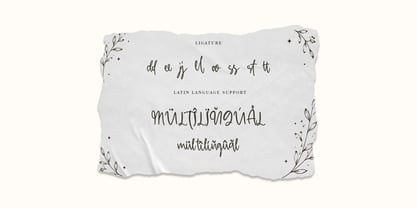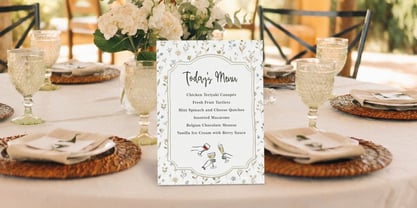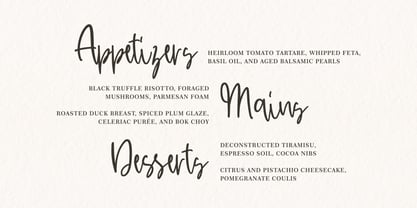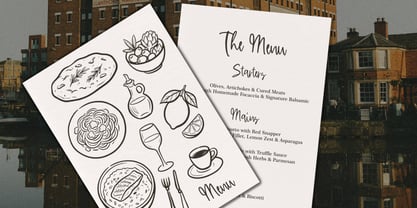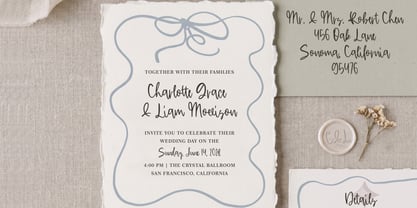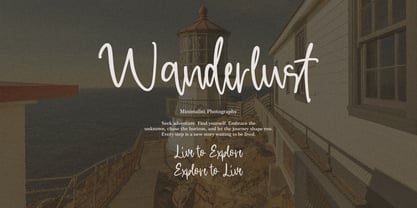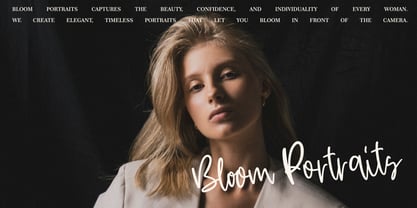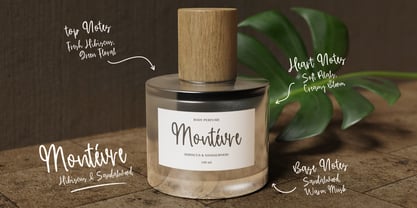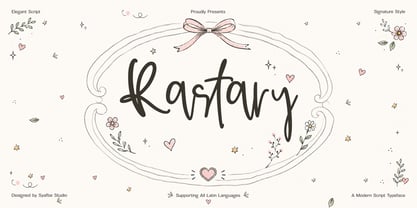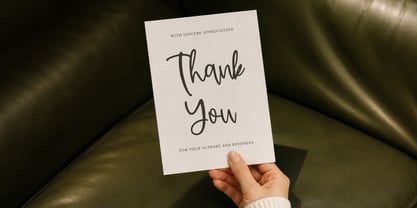
Rastary
Rastary: A Modern Script with Graceful Precision
Rastary is a modern handwritten script designed to bring together elegance, warmth, and personal expression. Its letterforms flow naturally like authentic handwriting, while maintaining a clean and polished structure suitable for professional design. The result is a typeface that feels intimate and organic, yet strong enough to become the visual centerpiece of a brand or campaign.
Versatile and highly adaptable, Rastary is ideal for branding, logos, cosmetic and perfume packaging, wedding stationery, greeting cards, editorial design, photography, restaurant menus, posters, and digital promotions. It performs beautifully as a headline, signature, product name, or expressive typographic accent. When paired with a serif or sans-serif typeface, Rastary creates a sophisticated contrast that feels modern, elegant, and visually balanced.
Rastary includes uppercase and lowercase letters, numerals, punctuation, ligatures, and multilingual Latin support, giving designers greater freedom across a wide range of projects. Its ligatures help words appear more natural, fluid, and exclusive, preventing the typography from feeling repetitive or generic. Choose Rastary when your project needs more than visual beauty—choose it to create a lasting impression, communicate personality, and give every design a recognizable signature.